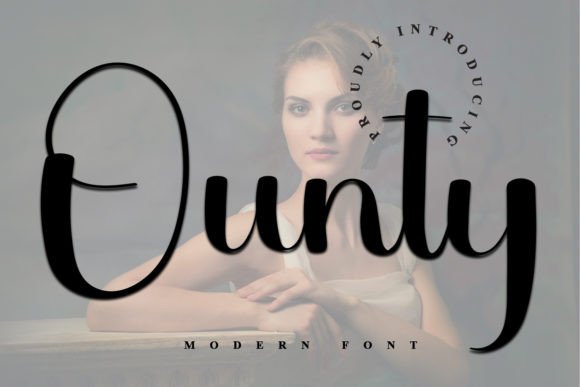
Introducing Ounty Font, a fresh and beautiful addition to your design toolkit. This script font, created by ABBAsalam, is the ultimate choice for luxury brands seeking to make a lasting impression. With its captivating charm and versatile usage, Ounty Font is here to elevate your visual creations to new heights.
Unlock a world of creative possibilities with Ounty Font's stunning features. Whether you're designing captivating YouTube banners, crafting a distinctive cover logo mockup, or creating elegant wedding invitations, this font has got you covered. Its seamless integration into various design elements, including ID cards, flyers, and crafts, ensures that your projects will always stand out from the crowd.
What sets Ounty Font apart is its simplicity and uniqueness. The clean lines and graceful curves of each letter bring a touch of sophistication to any design. Embrace the power of simplicity and let your content speak volumes with this remarkable font. Its elegance and charm will effortlessly captivate your audience, leaving a lasting impression.
But Ounty Font offers more than just visual appeal. It's a font that ignites progress and development for your business. As you incorporate this font into your branding, your business will exude a sense of luxury and refinement. Stand out from your competitors and create an unforgettable brand identity that resonates with your target audience.
With Ounty Font, you're not just acquiring a font; you're gaining a powerful tool for success. Let your creativity soar as you explore the endless possibilities this font offers. Whether you're a professional designer or a DIY enthusiast, Ounty Font empowers you to bring your vision to life with ease.
Don't miss out on this opportunity to elevate your design game. Experience the magic of Ounty Font and witness how it transforms your projects into works of art. Download now and unlock the potential to create captivating visual masterpieces that leave a lasting impression.